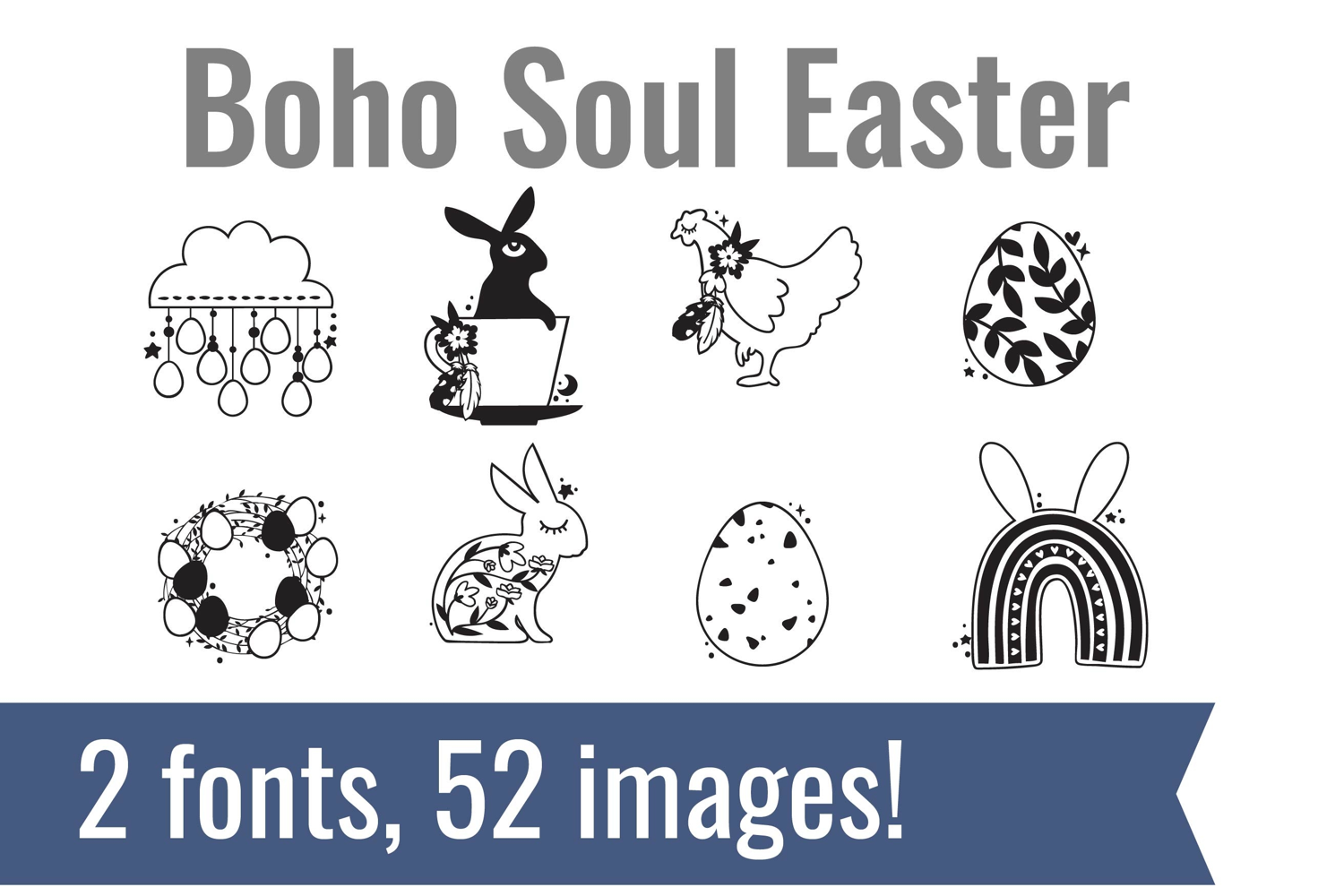
Boho Dingbats
Unlock endless creativity with two perfectly coordinated dingbat fonts! There are two dingbat fonts in this bundle, featuring babies and Easter.
Tired of spending hours searching for the perfect icons and graphics? Our dingbat fonts put dozens of cohesive, scalable designs at your fingertips. Simply install the font and type a letter to produce a pre-made image. From charming seasonal icons for holiday cards to intricate frames for your invitations, these fonts let you create stunning designs for vinyl cutting, paper crafts, planners, and more.